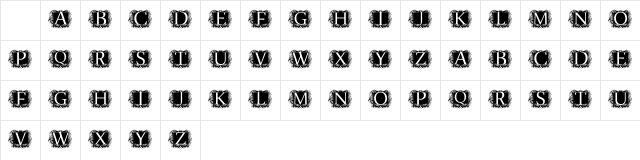
Complete modern kerawang Regular glyph index. Displaying only characters natively supported by modern kerawang Regular font.
modern kerawang is a composed and adaptable typeface that performs quietly and consistently across a wide range of design contexts.